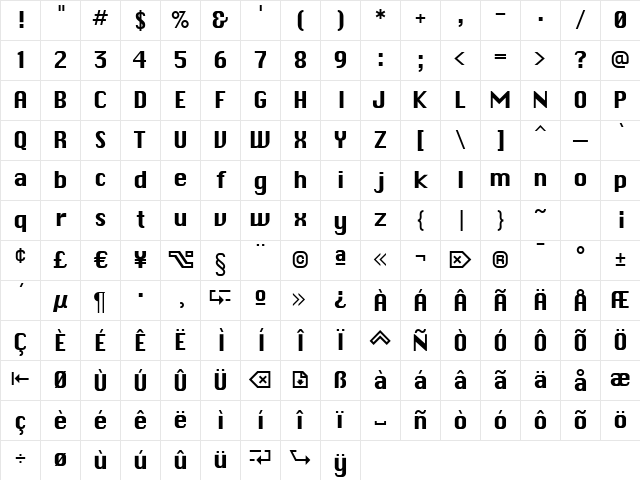
Complete MacEnvy Regular glyph index. Displaying only characters natively supported by MacEnvy Regular font.
Design Context for MacEnvy
MacEnvy is a composed and adaptable typeface that performs quietly and consistently across a wide range of design contexts.